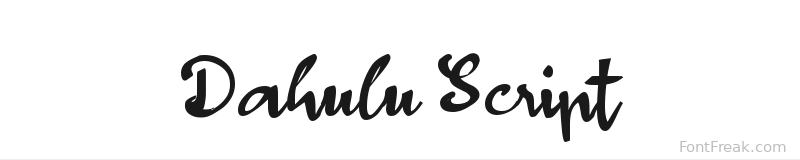
Dahulu Script
About Dahulu Script
Dahulu Script is a beautifully crafted script font designed by Wahyu Eka Prasetya. As a decorative typeface, it exudes a charming, handwritten quality that effortlessly conveys a sense of elegance and warmth. This font features fluid, flowing strokes with a moderate contrast that enhances its readability while maintaining an artistic flair. The well-balanced spacing between characters allows for smooth word formation, making it versatile for various applications. Its graceful curves and slight embellishments lend a personal touch, perfect for projects that require a softer, more inviting aesthetic.
The Dahulu Script font is ideal for wedding invitations, where its romantic feel can beautifully complement the occasion. It also shines in the realm of restaurant menus, offering a sophisticated yet approachable look that can entice diners. Additionally, this font works well for branding projects, particularly for small businesses seeking to establish a unique identity. Graphic designers will find it suitable for creating eye-catching social media graphics, as its distinctive style can capture attention while conveying a message of creativity.
What sets Dahulu Script apart is its ability to blend elegance with approachability, making it a standout choice for a variety of applications. Whether you're designing a heartfelt invitation or crafting a memorable logo, Dahulu Script font free download allows you to infuse your work with character and charm, ensuring it resonates with your audience. This font is not just a typeface; it’s an invitation to creativity.